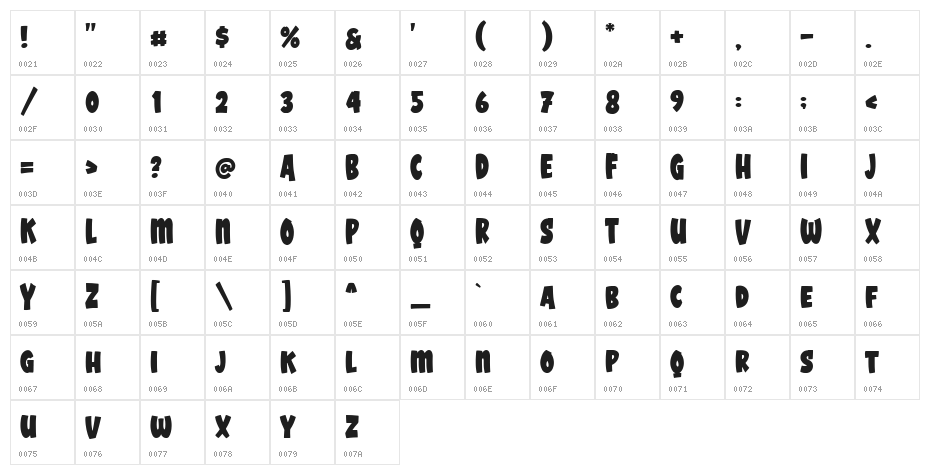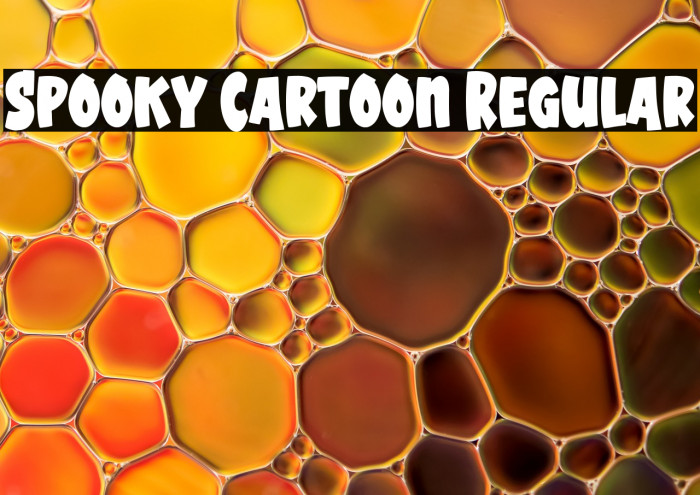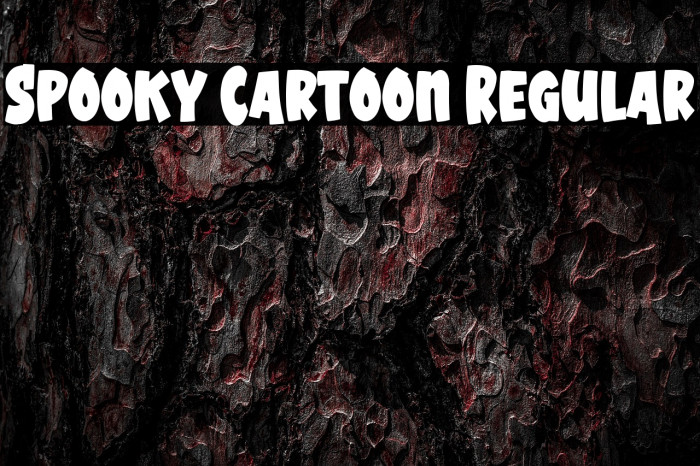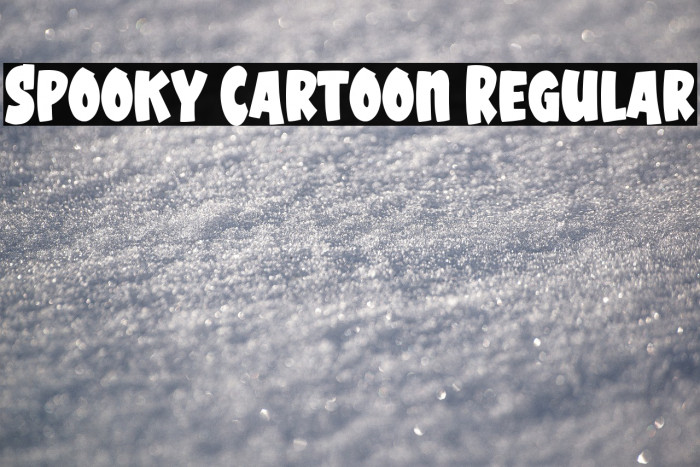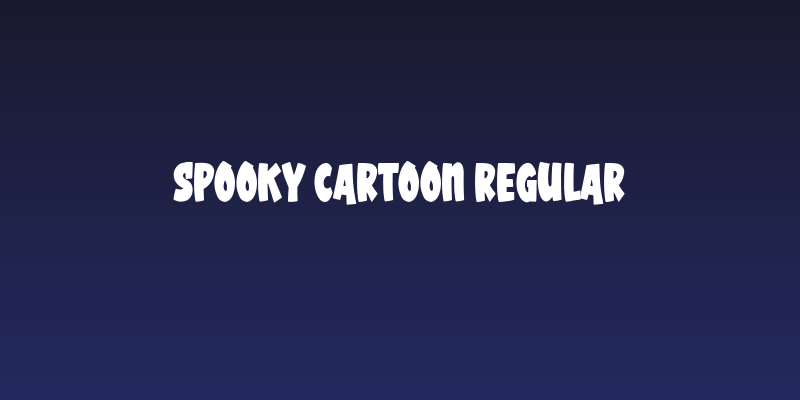
Spooky Cartoon Regular Font
Spooky Cartoon Regular Description
This font features a playful and bold style, characterized by its thick, uneven strokes and whimsical appearance. The letters have a cartoonish, hand-drawn quality, with exaggerated curves and a slightly irregular baseline that adds to its quirky charm. The uppercase and lowercase letters maintain a consistent style, with rounded edges and a sense of movement that makes the font feel lively and energetic. The numbers and special characters follow the same playful design, making it suitable for creative and informal projects. Its boldness ensures high visibility, making it ideal for attention-grabbing headlines or titles.
| Overall Style | Playful, Cartoonish, Whimsical |
| Use Case | Headlines, Logos, Posters, Invitations |
| Proposed Projects | Ideal for children's books, Halloween-themed designs, comic strips, playful branding, and party invitations. |